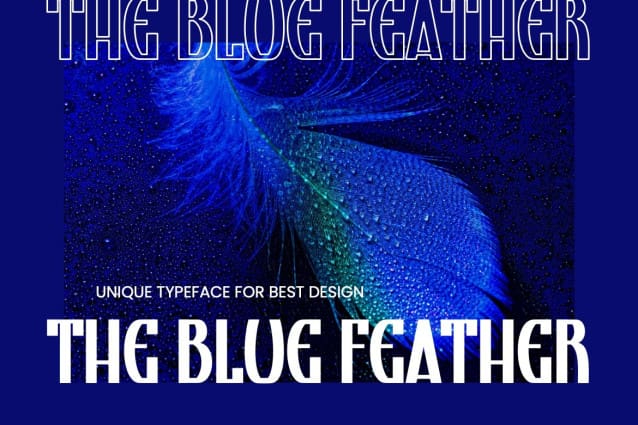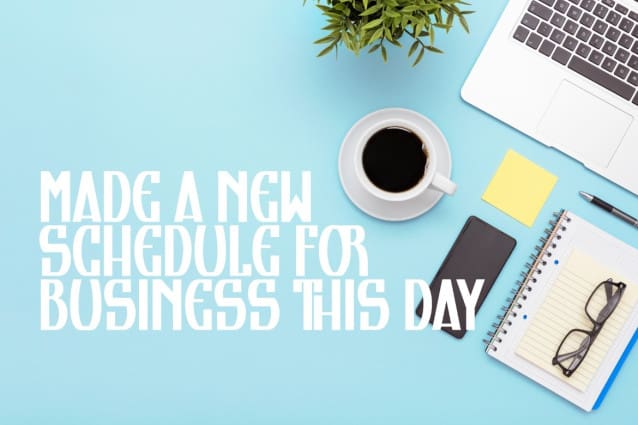
Kaitszeo Font
Kaitszeo Font – Sans Serif Display Font.This font is a delicate, elegant and smooth handwritten font. It has a beautiful and unique mix of ligatures per letter, so the authors have composed it with a slight swirl overlay, so that a modern font is formed and ready to make a splash by adding an elegant and unique touch to your next design project. Add it to your most creative ideas and watch how it brings them to life!